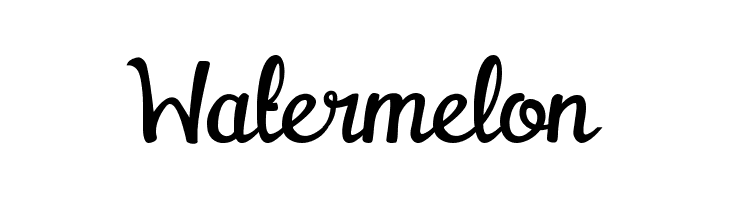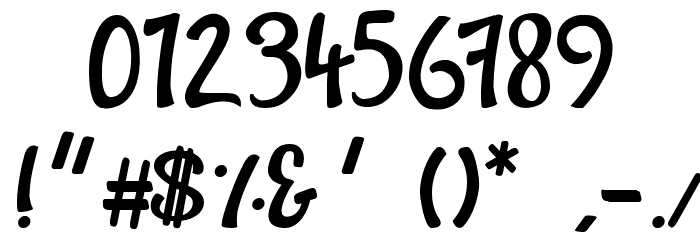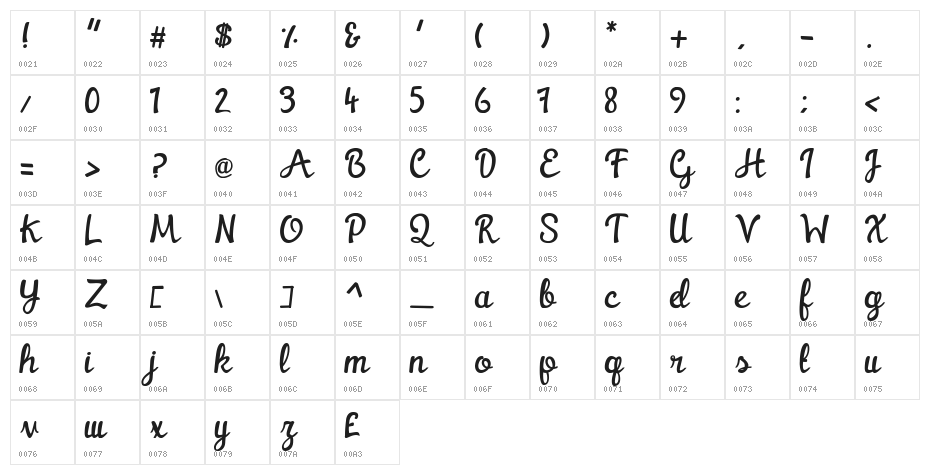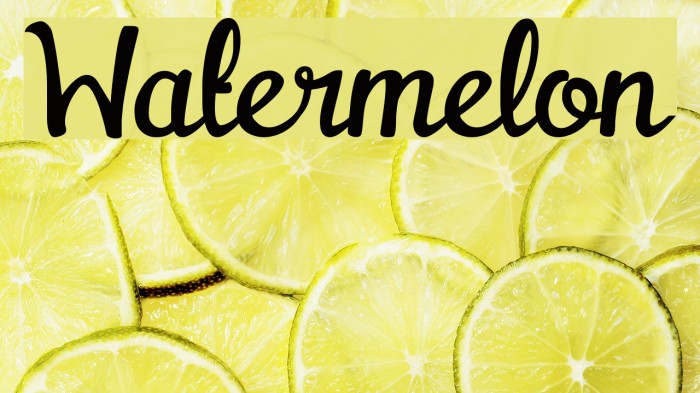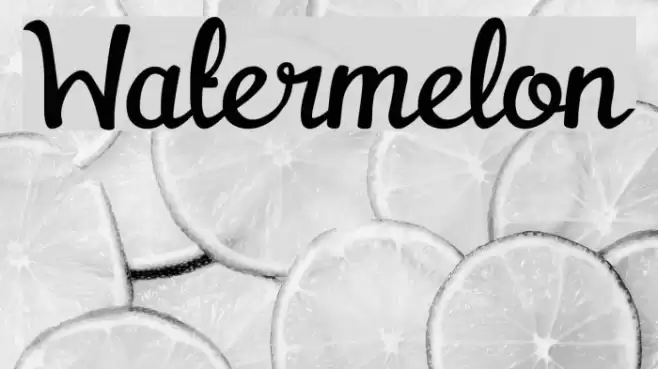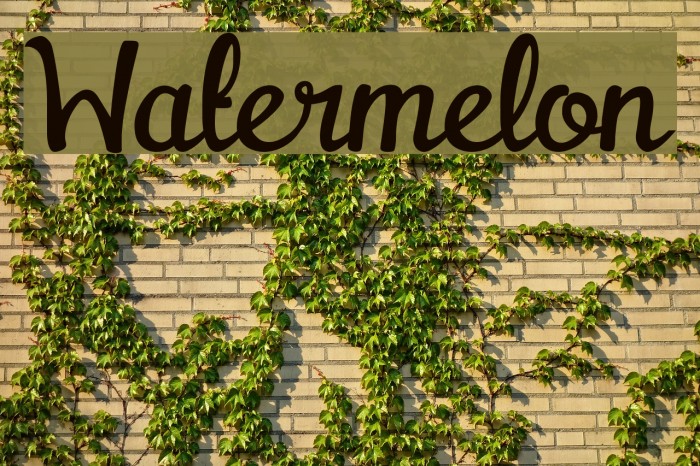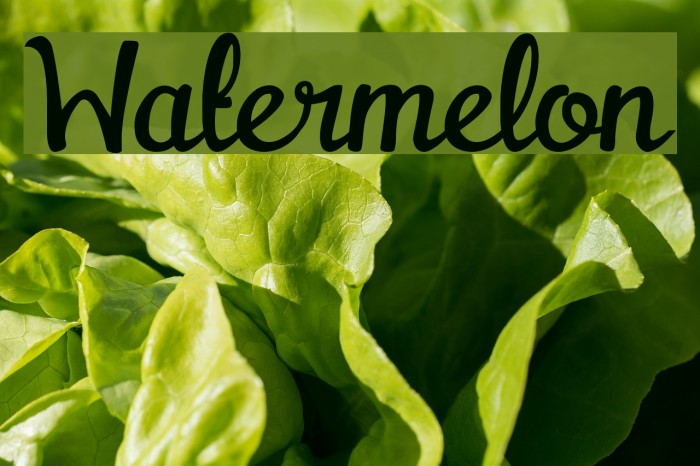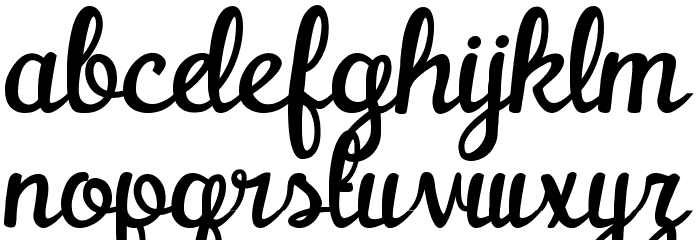
Watermelon Font
Watermelon Description
This font features a playful and energetic script style, characterized by its flowing, cursive letterforms. The uppercase letters are bold and dynamic, with a slight slant that adds to the lively feel. The lowercase letters maintain a consistent style, with smooth curves and loops that enhance readability while preserving the font's whimsical nature. The numerals are well-integrated, matching the overall aesthetic with their rounded and slightly slanted forms. Special characters are thoughtfully designed, ensuring a cohesive look across all glyphs. The font's bold strokes and moderate contrast make it suitable for eye-catching designs.
| Proposed Projects | Ideal for greeting cards, playful branding, children's books, and creative posters. |